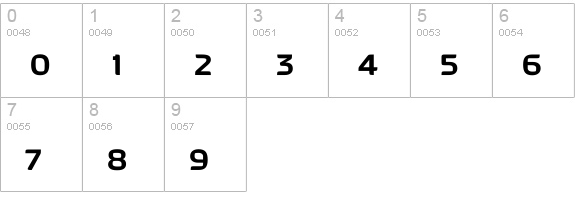
SeptemberBold Font Details
SeptemberBold font is a striking and stylish typeface that exudes confidence and modernity. With its bold and clean lines, this font is perfect for making a statement in any design project. Its sleek and contemporary look makes it ideal for various creative purposes, from branding to editorial design. What sets SeptemberBold font apart is its versatility - it can be used for both headings and body text, making it a valuable addition to any designer's toolkit. Whether you're working on a poster, website, or logo, SeptemberBold font will lend a touch of sophistication and elegance to your project. And the best part? SeptemberBold font is available for free download at FontsMarket.com, making it accessible to designers of all levels. Don't miss out on the opportunity to enhance your designs with this sleek and stylish typeface. Download SeptemberBold font today and take your projects to the next level!